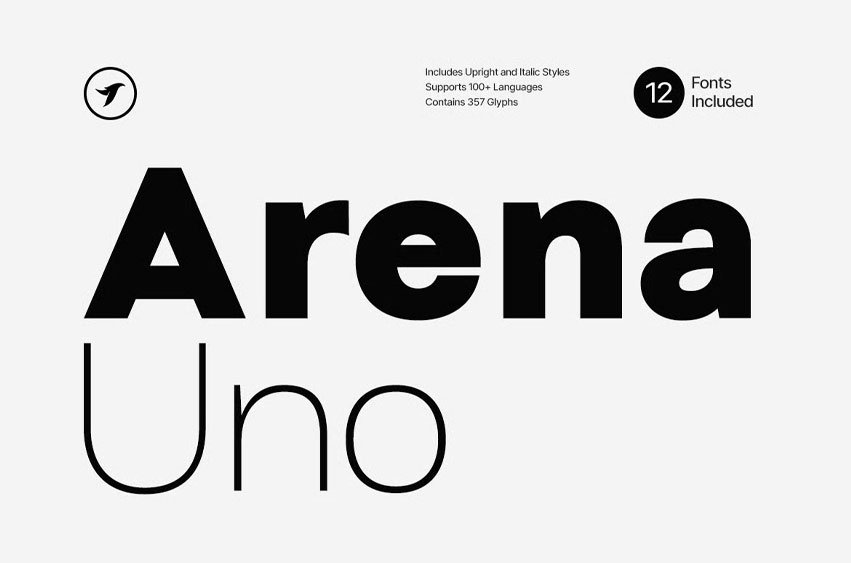
Arena Uno Font is a clean and modern sans-serif typeface that is perfect for contemporary design projects. It is the fifth typeface released in our Uno class font families, known for being one of the most advanced and feature-rich fonts in our portfolio.
Arena Uno offers 12 fonts, including 6 weights of upright styles and their matching italics. It has been crafted with powerful OpenType features, providing an extensive character set with 357 glyphs that support over 100 languages. This typeface is well-suited for graphic design, display, branding, and marketing applications. It performs exceptionally well for web, social media, digital marketing, signage, corporate materials, and editorial design. With additional letter spacing, Arena Uno becomes the ideal choice for minimal headlines and logotypes, as demonstrated in the attached promotional designs.
FEATURES:
The Arena Uno font family includes 16 fonts in total, with six upright weights and Italic equivalents of all six weights as follows:
- Thin
- Thin Italic
- Light
- Light Italic
- Regular
- Italic
- Medium
- Medium Italic
- Bold
- Bold Italic
- Heavy
- Heavy Italic
357 GLYPHS INCLUDED:
Handcrafted and designed with powerful OpenType features in mind, each weight includes extended language support with Western European, Central European, and South Eastern European sets. A total of 357 glyphs are available.
EXTENSIVE LANGUAGE SUPPORT:
The typeface supports 100+ languages: Abkhazian • Acehnese • Adangme • Adyghe • Afrikaans • Albanian • Aleut • Angika • Aragonese • Arapaho • Aromanian • Asu • Avaric • Awadhi • Aymara • Balinese • Basque • Bemba • Bena • Bini • Bislama • Buginese • Cajun French • Catalan • Cebuano • Chamorro • Cheyenne • Chiga • Chuukese • Colognian • Comorian • Cornish • Corsican • Czech • Dakota • Danish • Dargwa • Dazaga • Dogrib • Dutch • Efik • Ekajuk • English • Estonian • Fijian • Filipino • Finnish • Fon • French • Friulian • Galician • German • Gilbertese • Gorontalo • Gusii • Gwichʼin • Haitian Creole • Herero • Hiligaynon • Hungarian • Hupa • Iban • Ibibio • Ido • Iloko • Indonesian • Interlingua • Irish • Italian • Javanese • Jju • Kabardian • Kabuverdianu • Kachin • Kalaallisut • Kalenjin • Kalmyk • Kanuri • Karachay-Balkar • Karelian • Khasi • Kimbundu • Kinyarwanda • Klingon • Komi • Koro • Kuanyama • Kumyk • Kurukh • Ladino • Latin • Lezghian • Limburgish • Lojban • Louisiana Creole • Lozi • Luba-Lulua • Lule Sami • Lunda • Luo • Luxembourgish • Luyia • Machame • Madurese • Magahi • Makasar • Makhuwa-Meetto • Makonde • Malagasy • Malay • Manx • Mari • Marshallese • Mende • Minangkabau • Mirandese • Mizo • Moksha • Morisyen • Mossi • Nauru • Ndonga • Neapolitan • Newari • Ngambay • Nias • Niuean • Nogai • North Ndebele • Northern Sotho • Norwegian Bokmål • Norwegian Nynorsk • Nyanja • Nyankole • Occitan • Oromo • Palauan • Pampanga • Pangasinan • Papiamento • Portuguese • Rapanui • Rarotongan • Romanian • Romansh • Rombo • Rundi • Rwa • Samburu • Sandawe • Sango • Sangu • Sardinian • Scots • Scottish Gaelic • Sena • Shambala • Shan • Shona • Siksiká • Skolt Sami • Slovak • Slovenian • Soga • Somali • Soninke • South Ndebele • South Sámi • Southern Altai • Southern Sotho • Spanish • Sranan Tongo • Sukuma • Sundanese • Swahili • Swati • Swedish • Swiss German • Tahitian • Taita • Taroko • Teso • Tetum • Timne • Tok Pisin • Tsonga • Tswana • Tumbuka • Turkish • Turkmen • Tuvalu • Tuvinian • Udmurt • Umbundu • Vunjo • Walloon • Waray • Welsh • Wolastoqey • Xhosa • Yemba • Zaza • Zulu • Zuni
Scripts: Latin